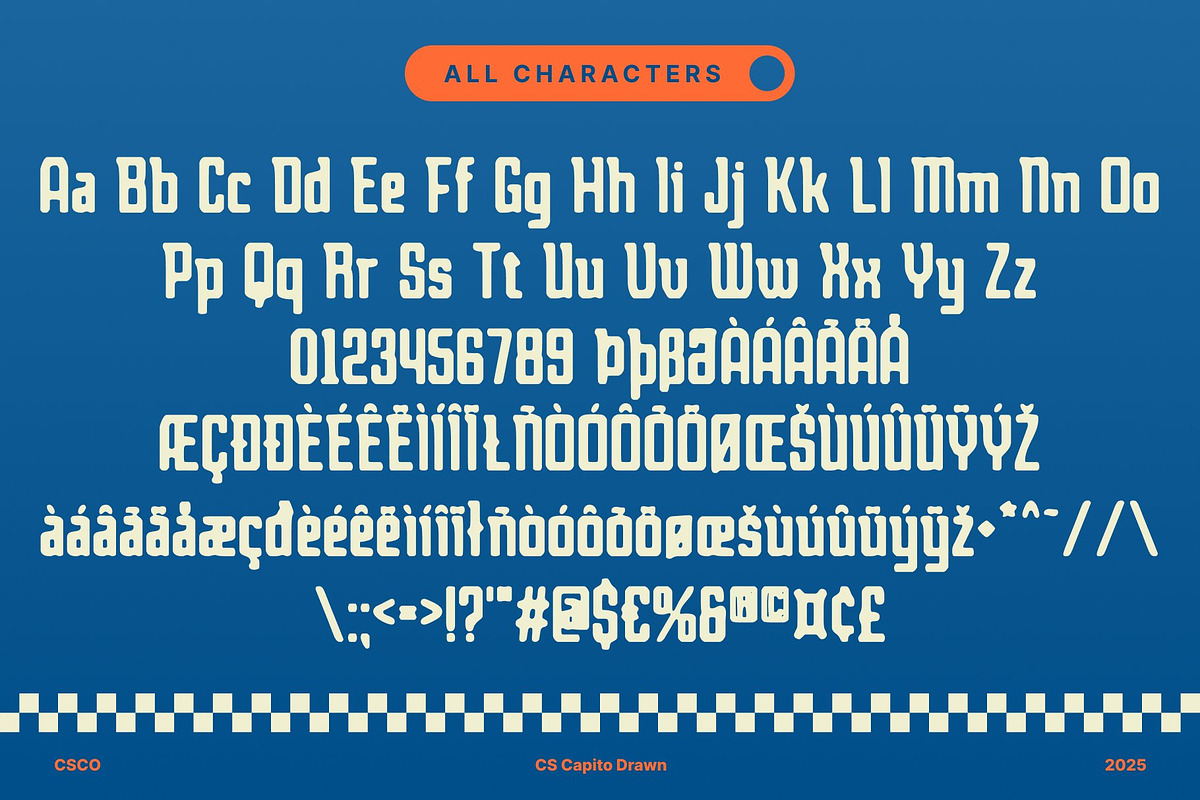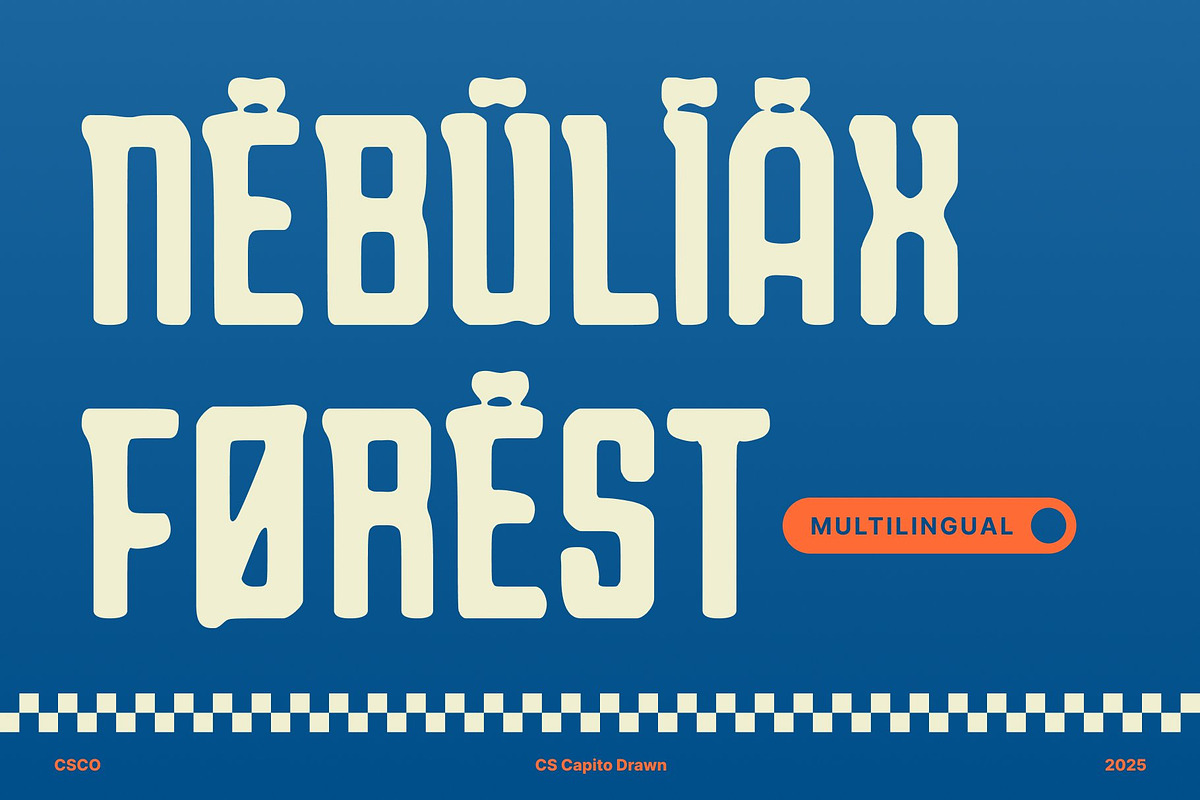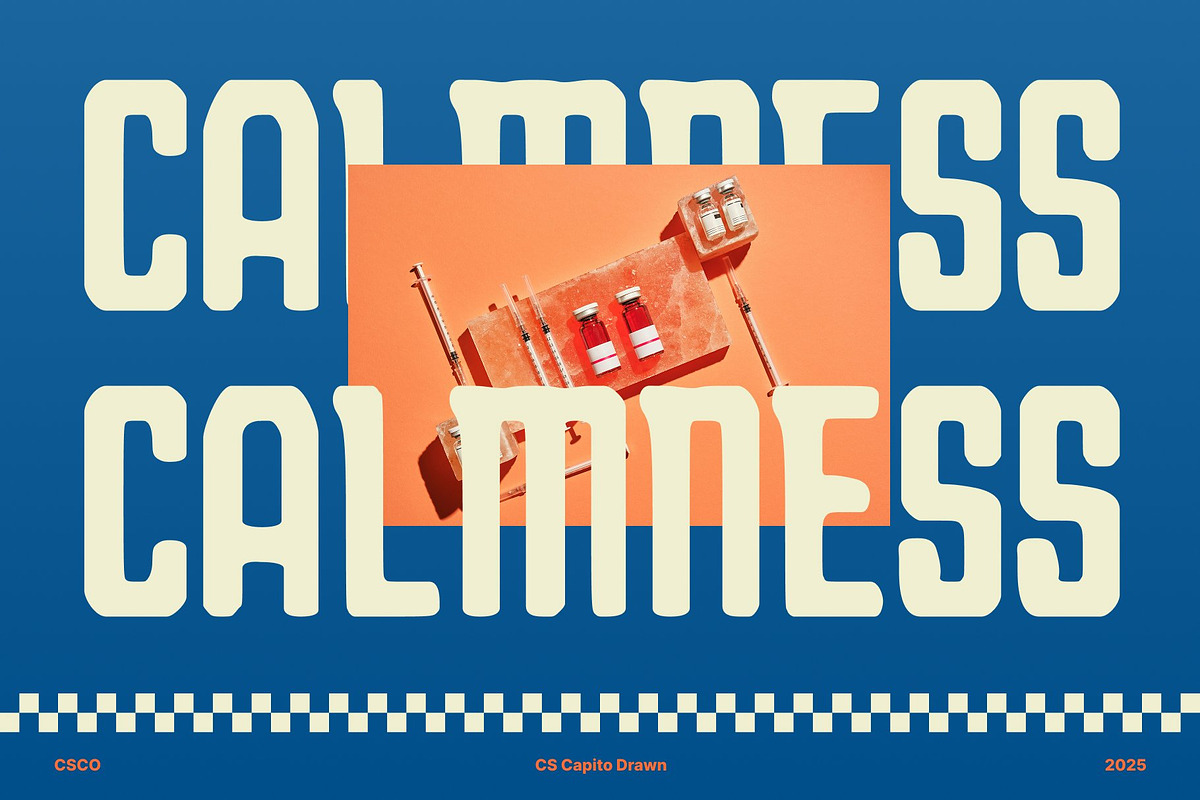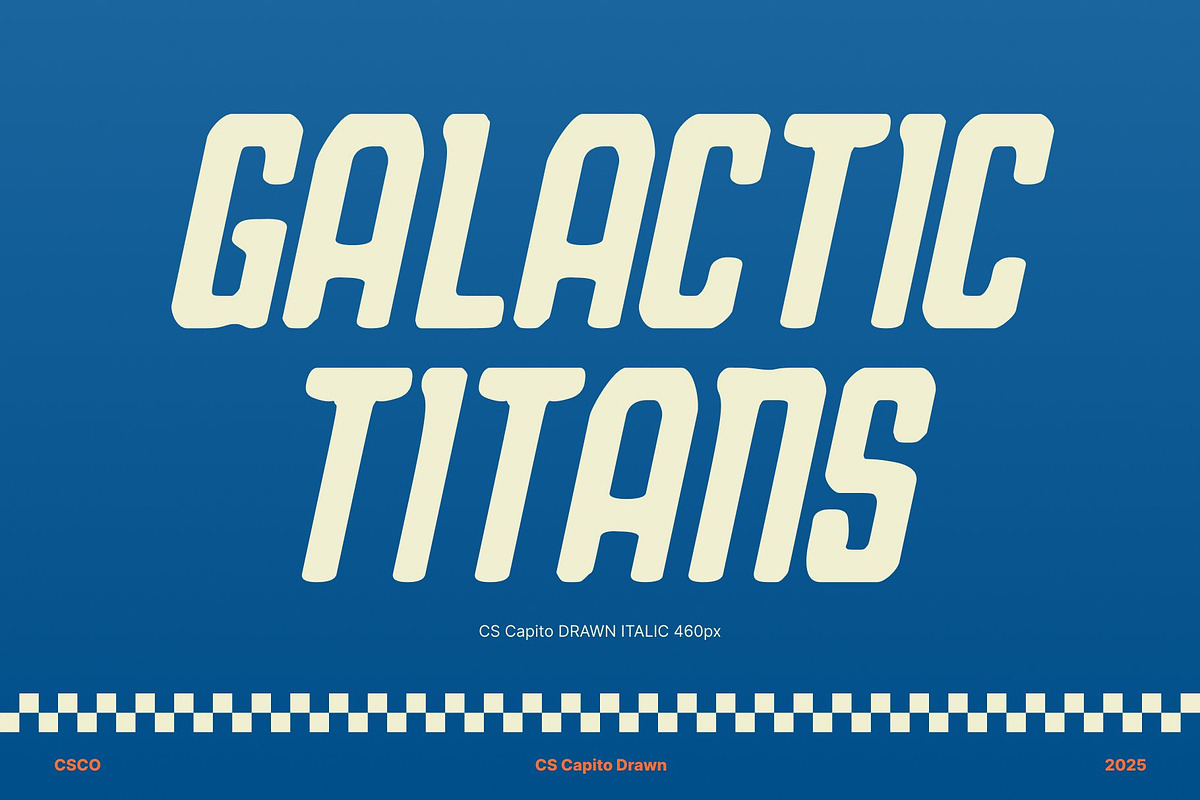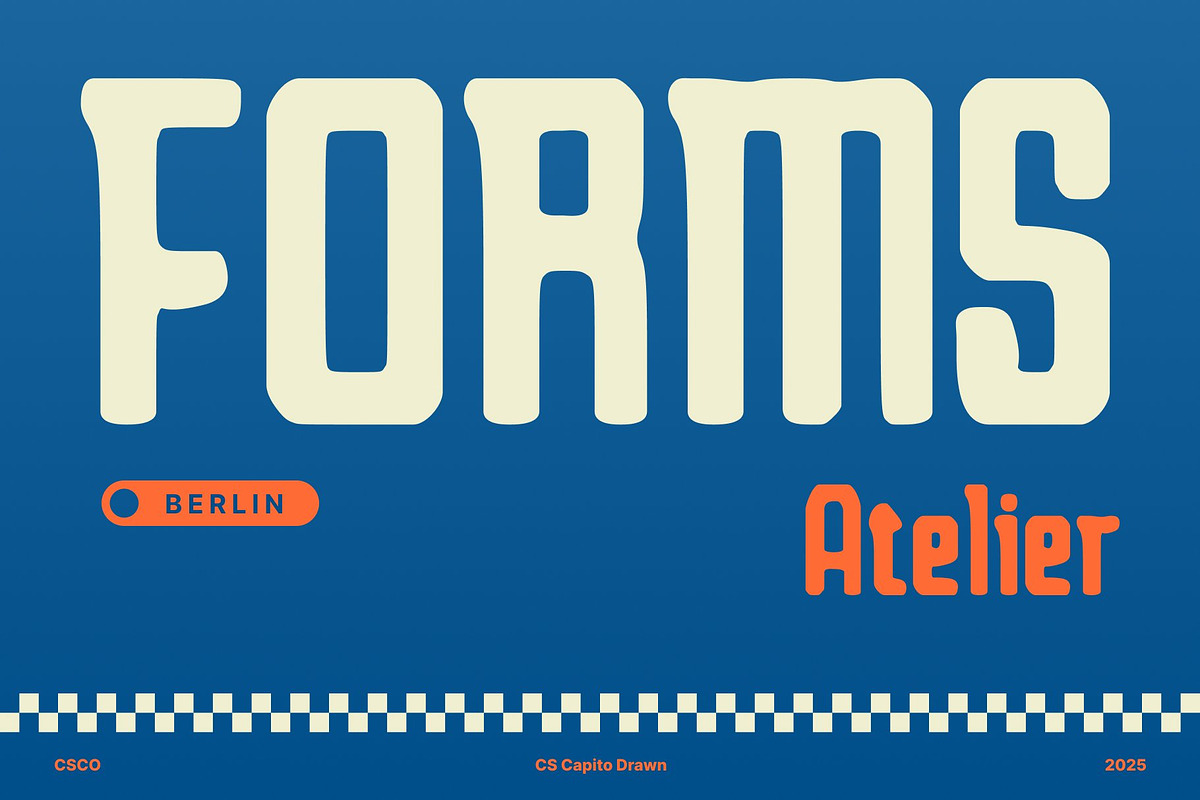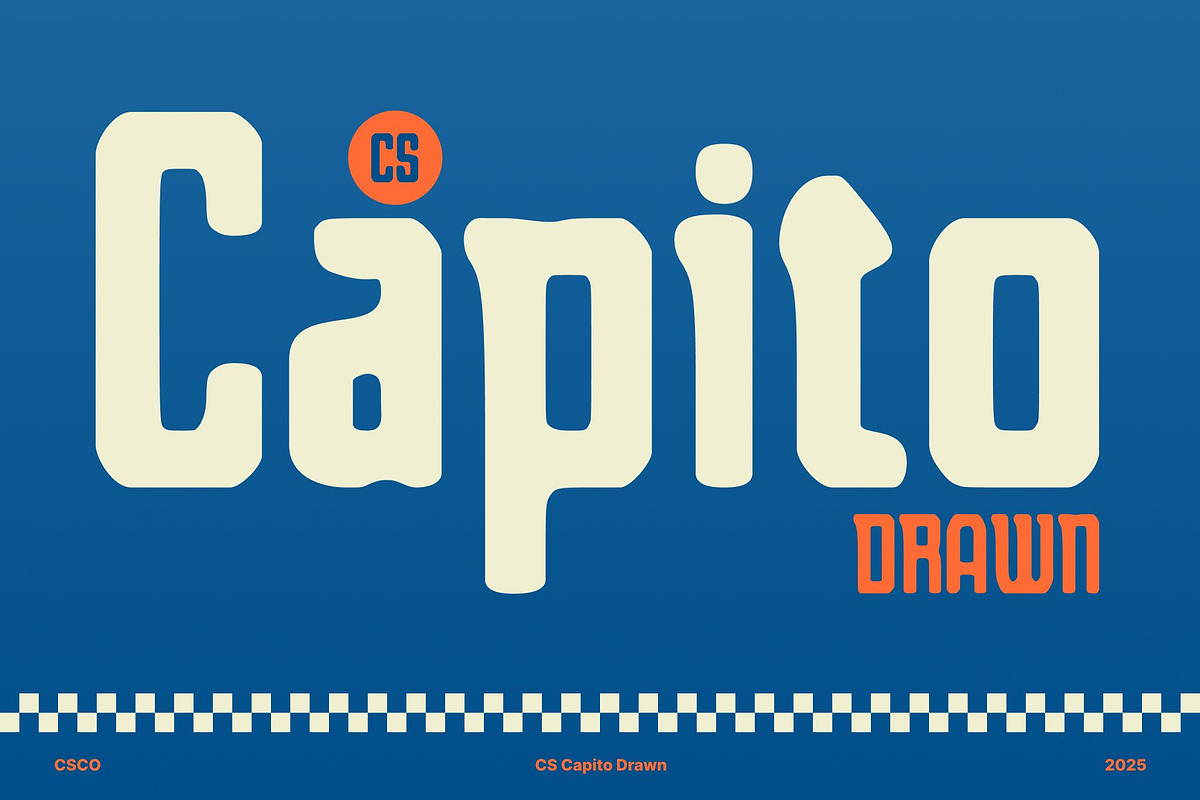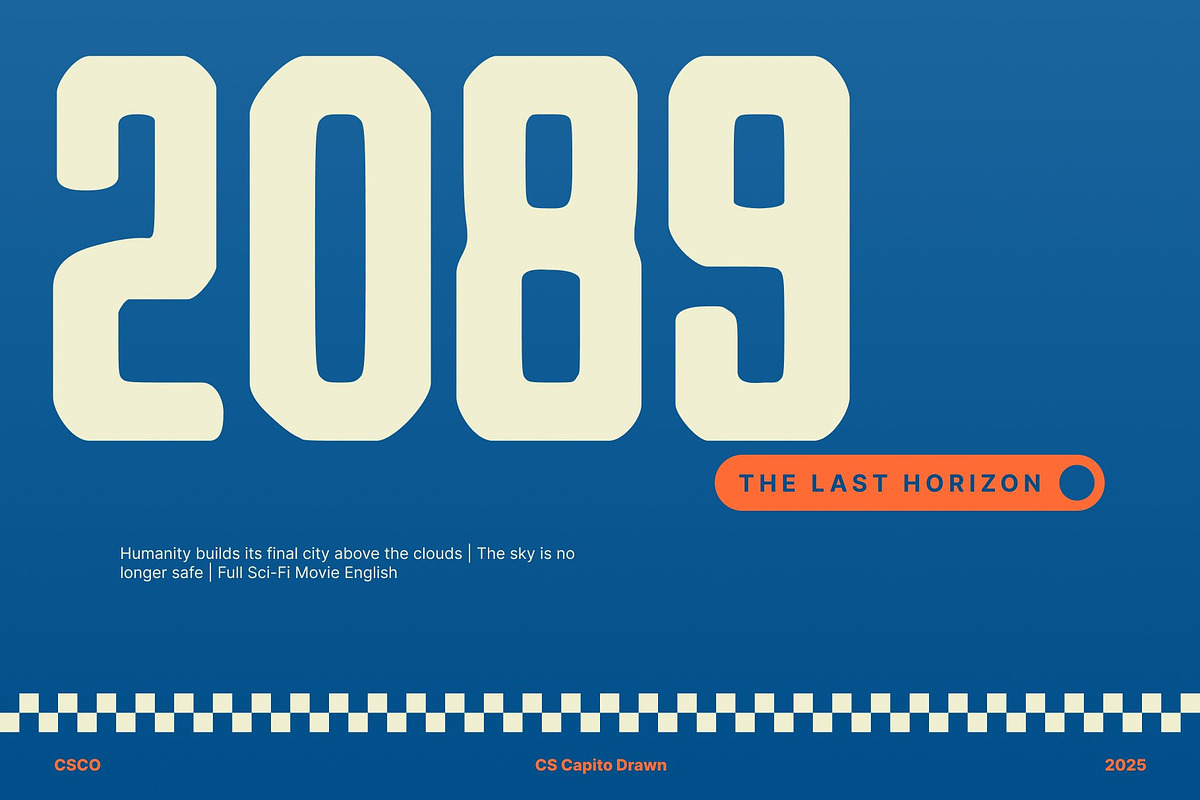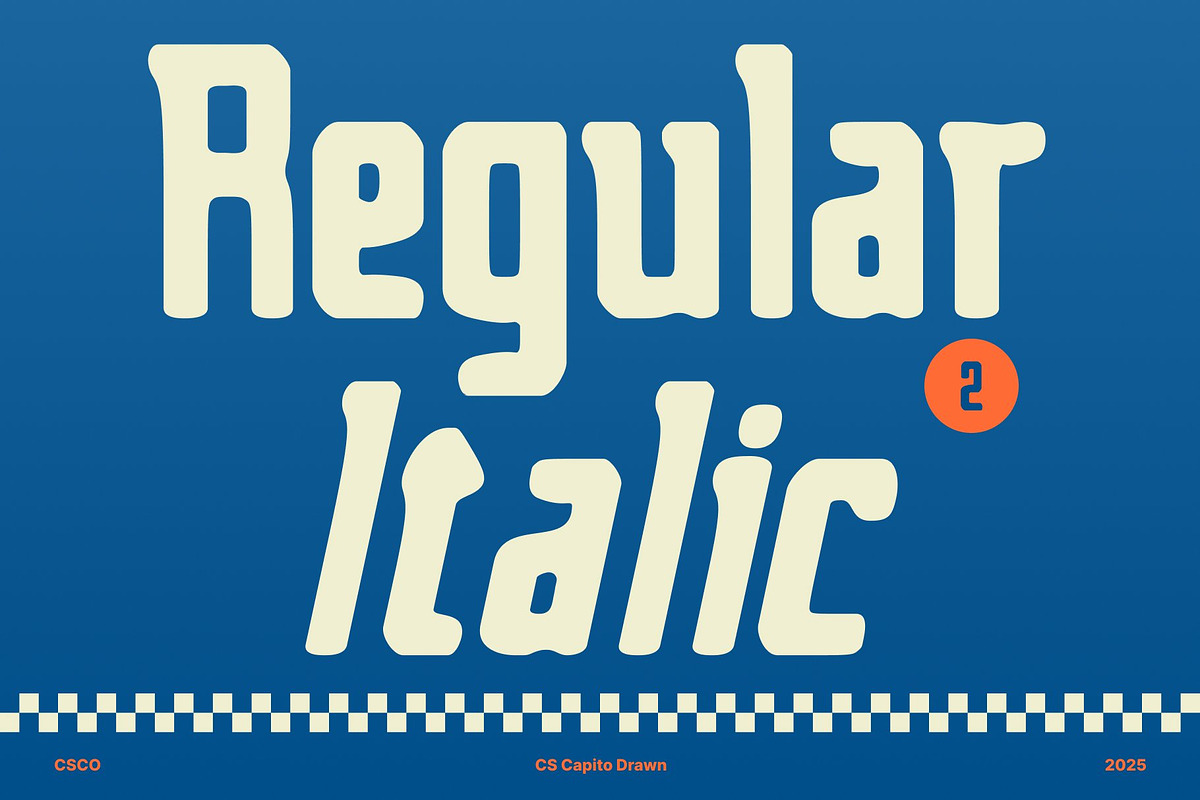
CS Capito Drawn
CS Capito Drawn – Bold Sporty Display Font with Handcrafted Strength
Sporty Bold Style with Confident Presence This font delivers a powerful visual punch through its bold weight, athletic personality, and strong condensed composition. Every letter is designed to project confidence and energy, making the font perfect for designs that aim to stand out with assertiveness and speed. Its sporty aesthetic instantly adds momentum and impact to your layout.
Condensed Form for Maximum Visual Force Built with a condensed structure, this font uses space efficiently while maintaining impressive readability. Its narrow proportions help pack more power into every word, ensuring headlines and titles appear dense, striking, and intensely focused. This characteristic makes it ideal for posters, banners, and high impact messaging.
Hand Drawn Texture for Raw Character Adding depth and authenticity, the drawn handmade texture gives this font a raw, expressive quality. The subtle imperfections and organic lines make the font feel crafted, dynamic, and full of personality. This handcrafted touch enhances the sporty concept by adding grit and authenticity.
Perfect for Bold Branding and Eye Catching Displays Whether you’re designing for sports teams, active lifestyle brands, event promotions, or energetic advertising, this font performs effortlessly. Its bold stance and handcrafted style make it suitable for impactful branding, standout posters, and attention grabbing titles. With this font, your design gains a voice that is strong, modern, and undeniably commanding.